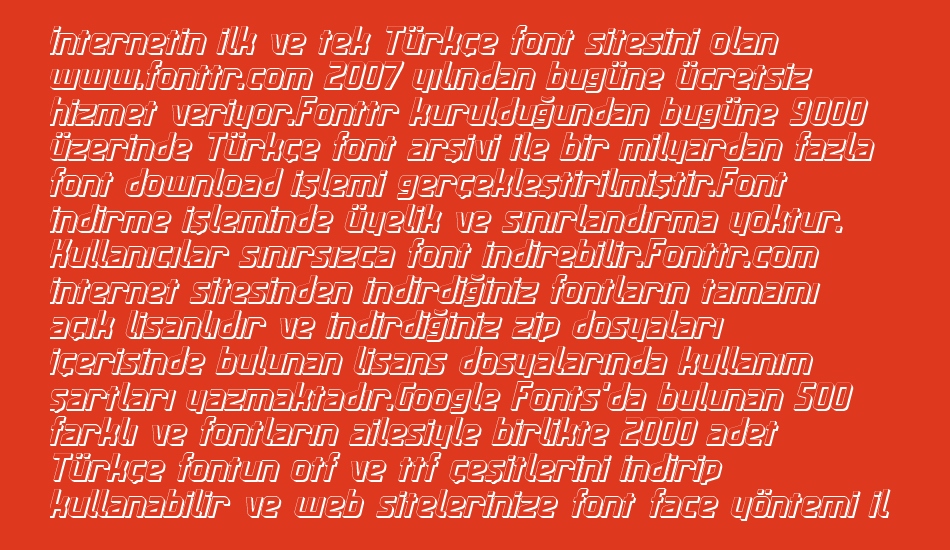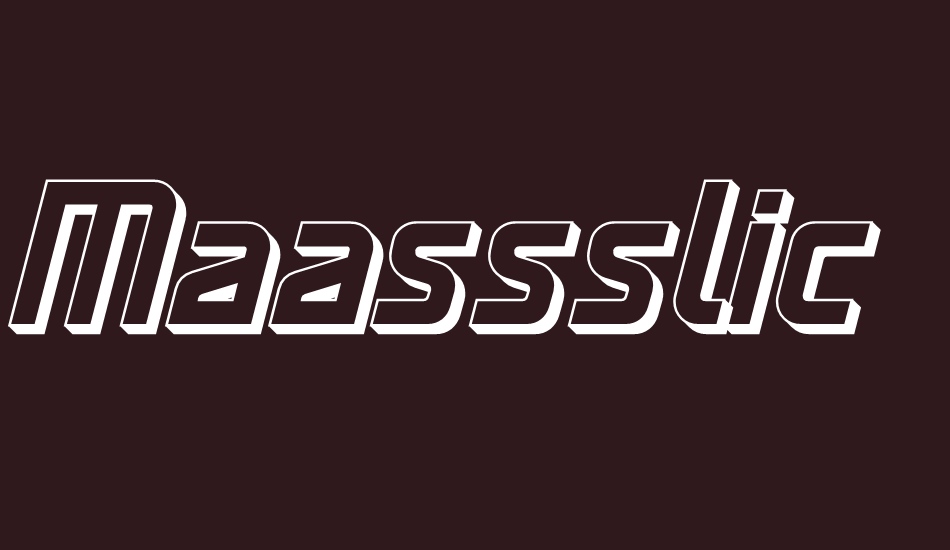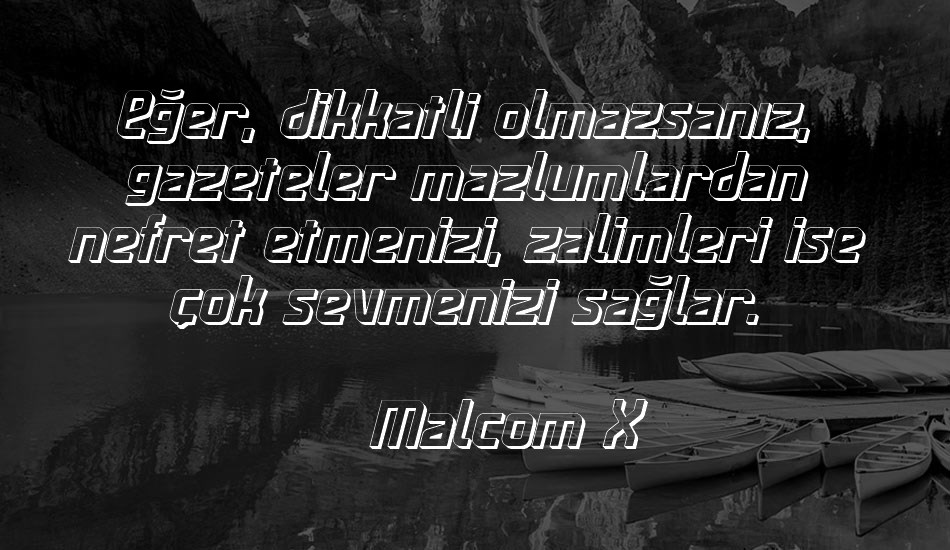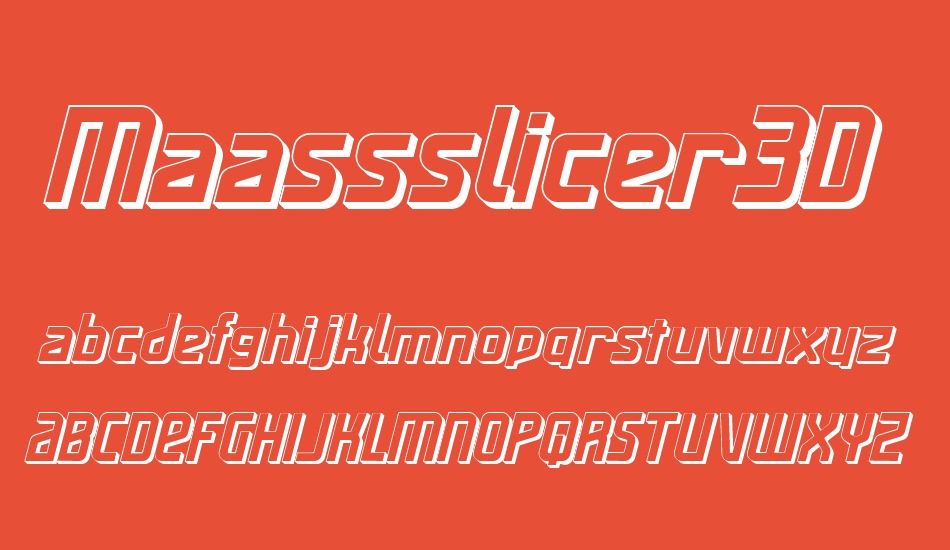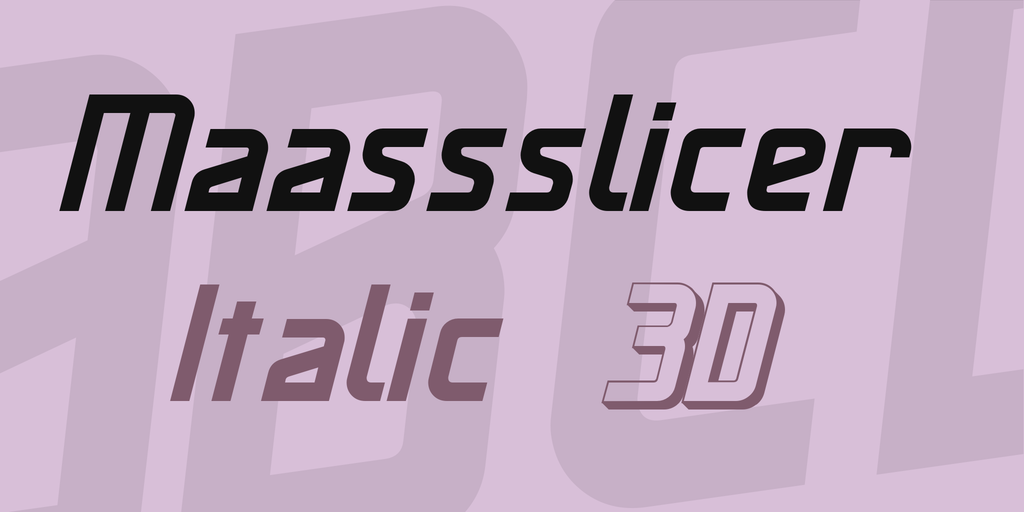
This Font I created for the world leader in salmon slicing machines: Maass Salmon Slicers. It was inspired by their logo.
Update Notice: Jan.2007: I have removed the Maass-Logos, cause the company asked me to do this. And as I had to edit the font, I have added a lot of more glyphs:
I have addes lowercase letters, the complete set of european "Latin Extended A" glyphs fpr all the west and east european languages,
greek glyphs as well as kyrillic letters, including special letters for other countries than russia using kyrillic writing.